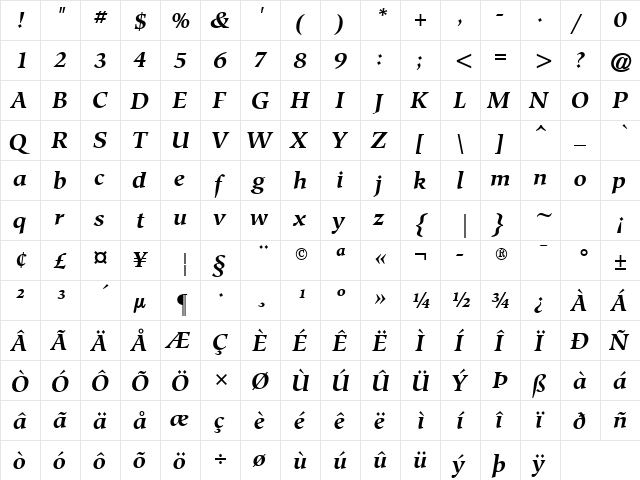
Hiroshige ATT Bold Italic
Design Context for Hiroshige ATT Typeface
Hiroshige ATT is a composed and adaptable typeface that performs quietly and consistently across a wide range of design contexts. The slanted form adds forward momentum and visual energy. The heavy weight commands attention and anchors typographic hierarchies.